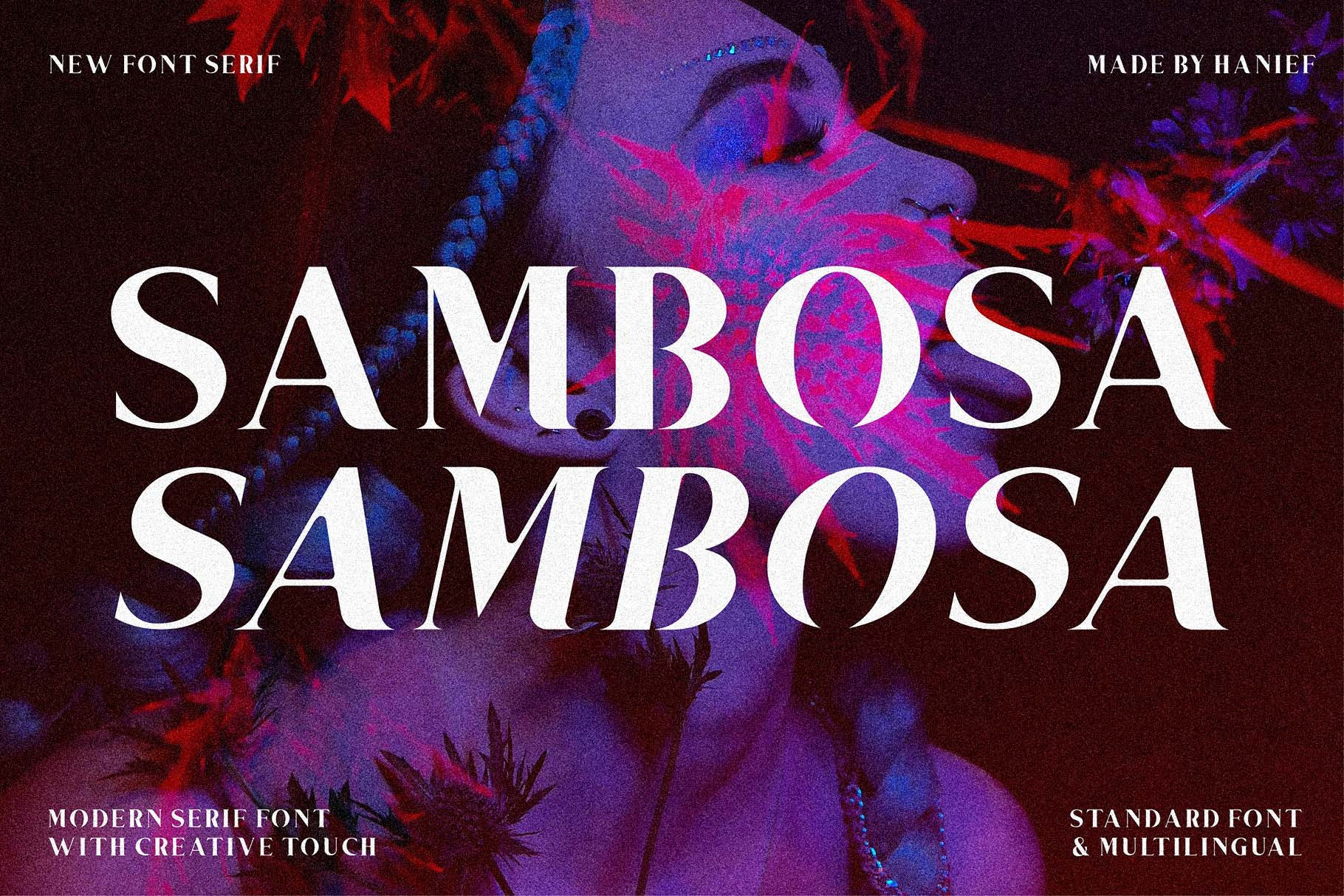
Sambosa - Modern Serif Font
Sambosa - Modern Serif Font is a stylish font It has both modern look. Comes with Bold and Bold Italic, helps to create stunning logos, quotes, posts, blog posts. branding projects, magazine imagery, wedding invitations, and much more.
- Containing full set of punctuation and numerals